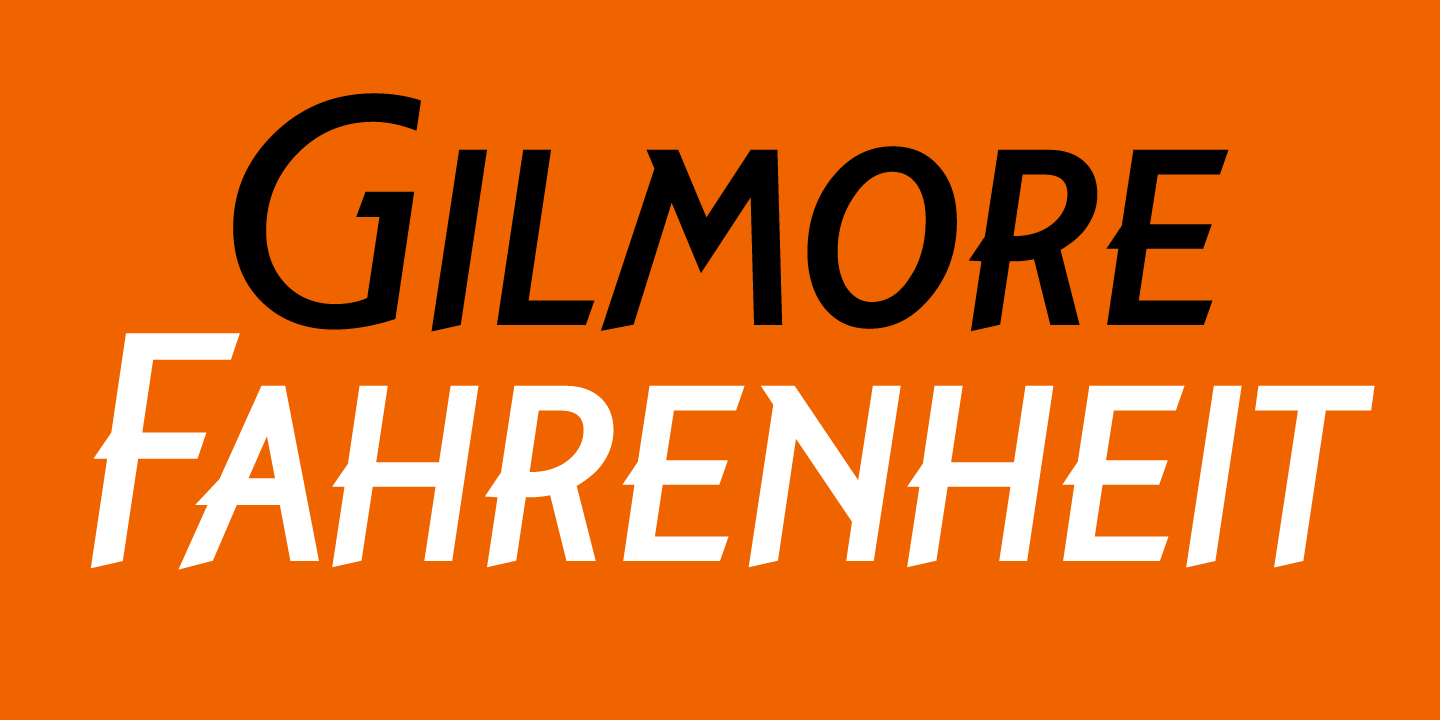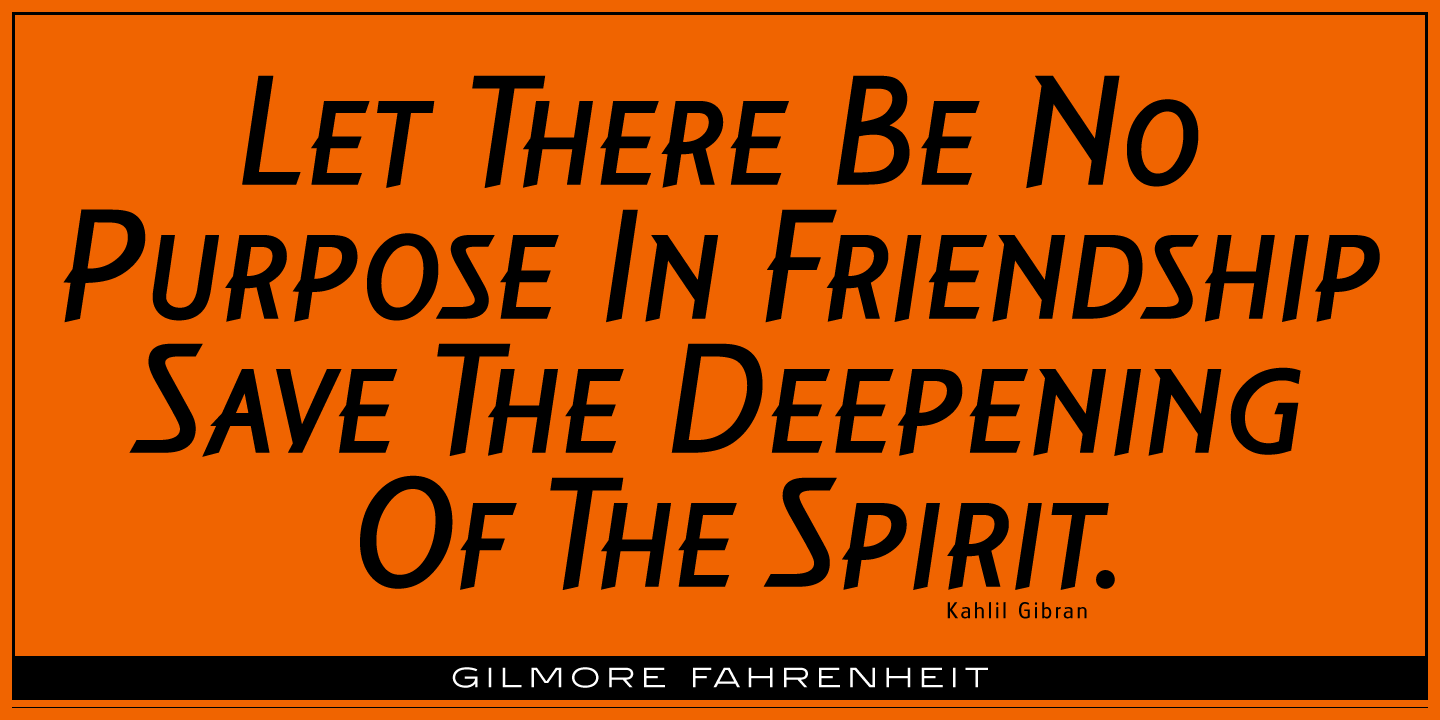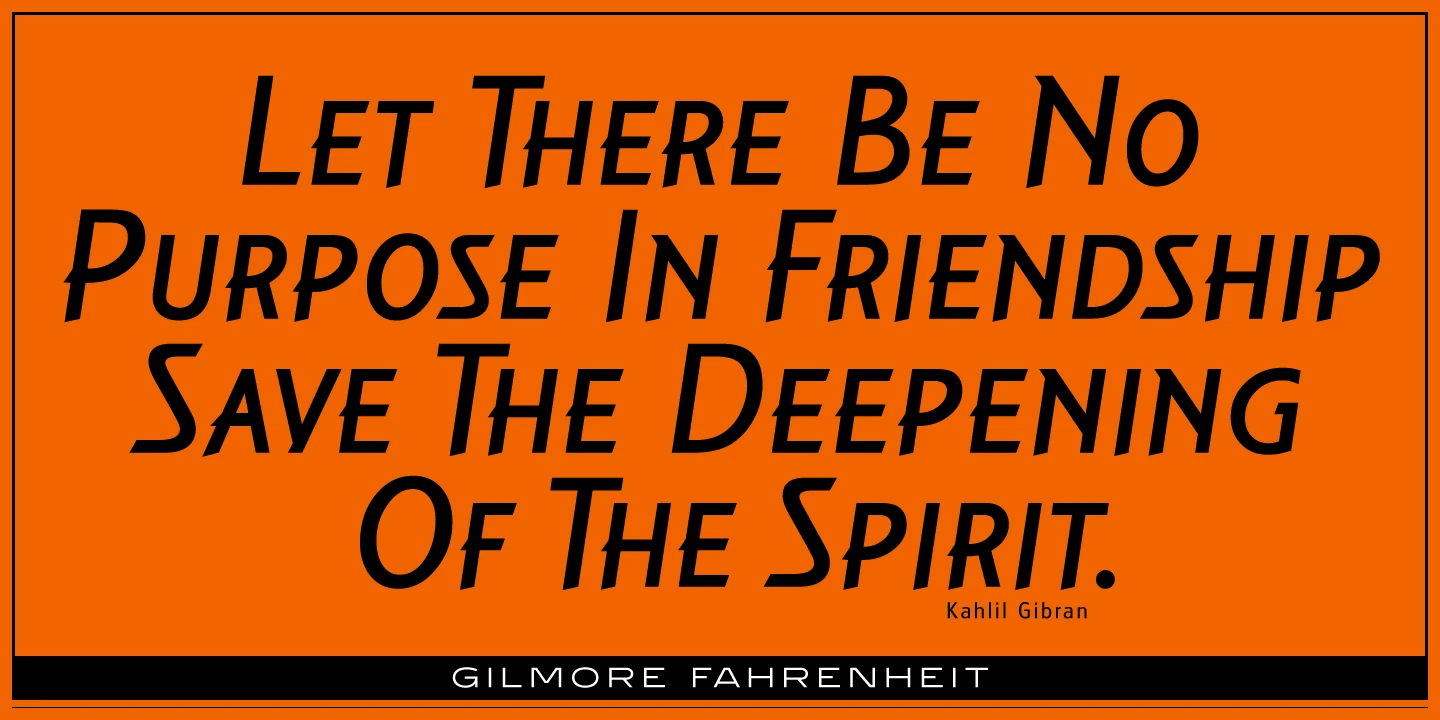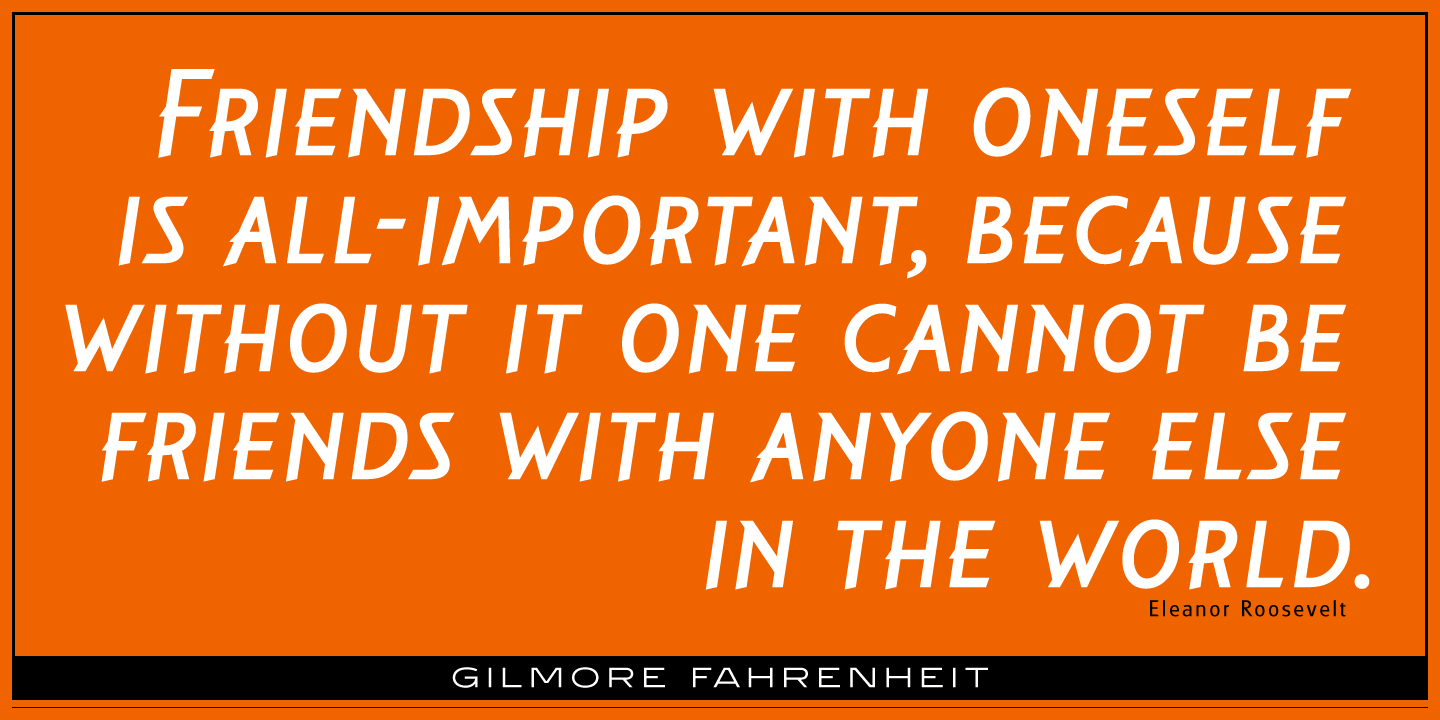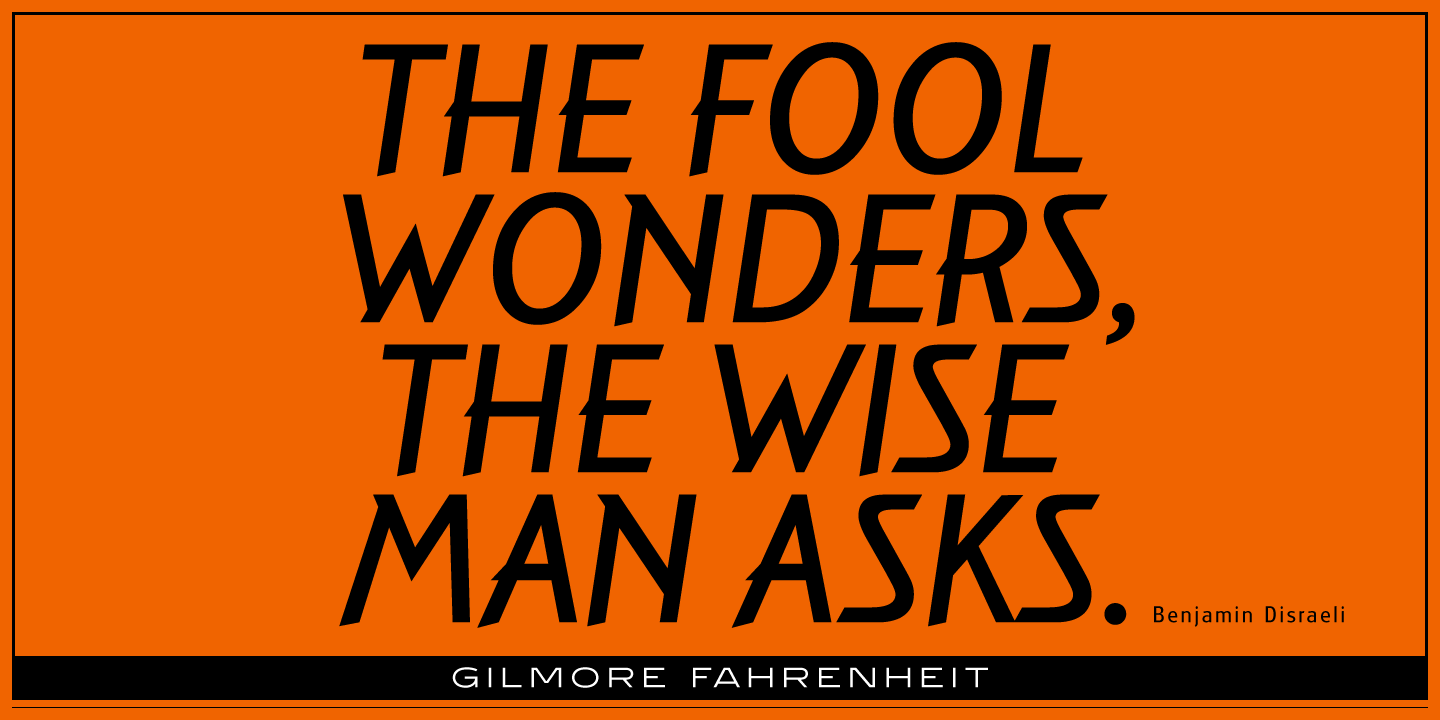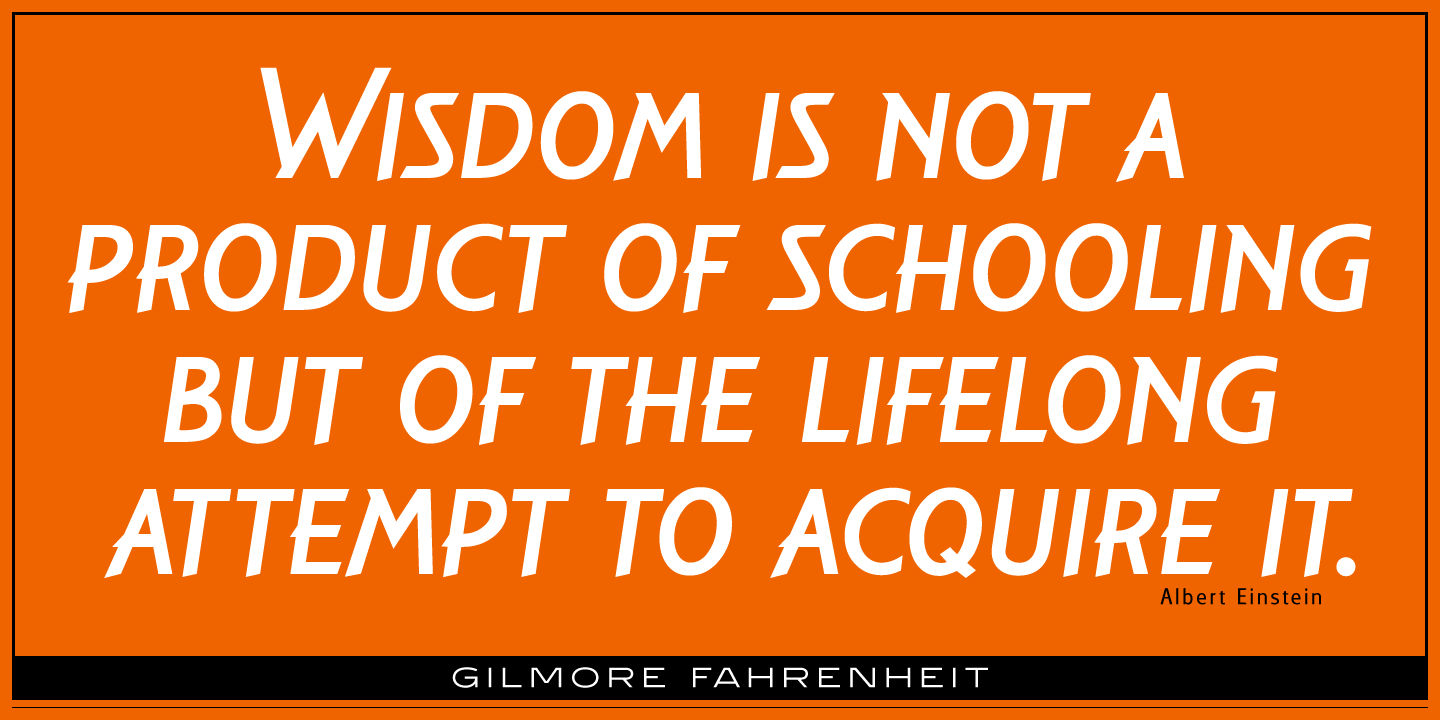
Gilmore Fahrenheit Font
Gilmore Fahrenheit is a unique sans serif typeface that was inspired by early designs from the renowned English typographer Eric Gill. It was designed in 1992 by A. Pat Hickson (P&P Hickson) and Steve Jackaman (ITF) exclusively for the Red Rooster Collection. It was designed with true small caps and possesses legibility reminiscent of Swiss typefaces.